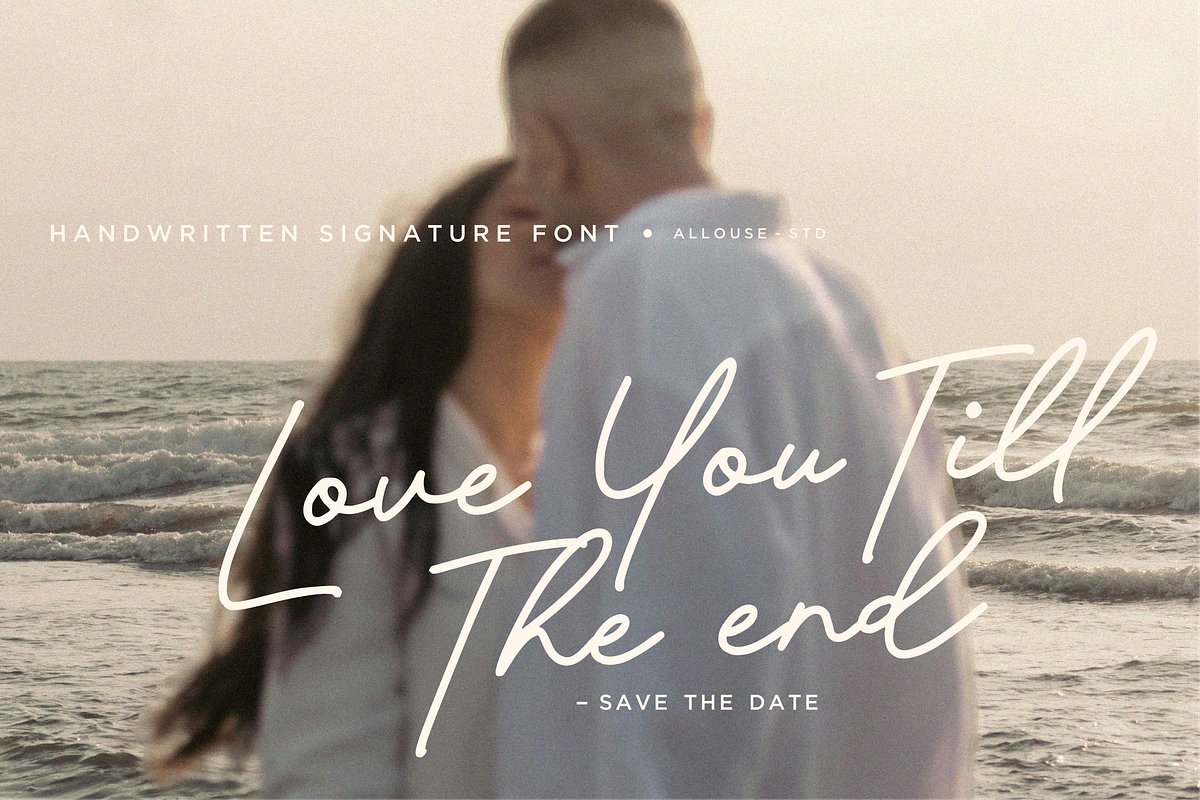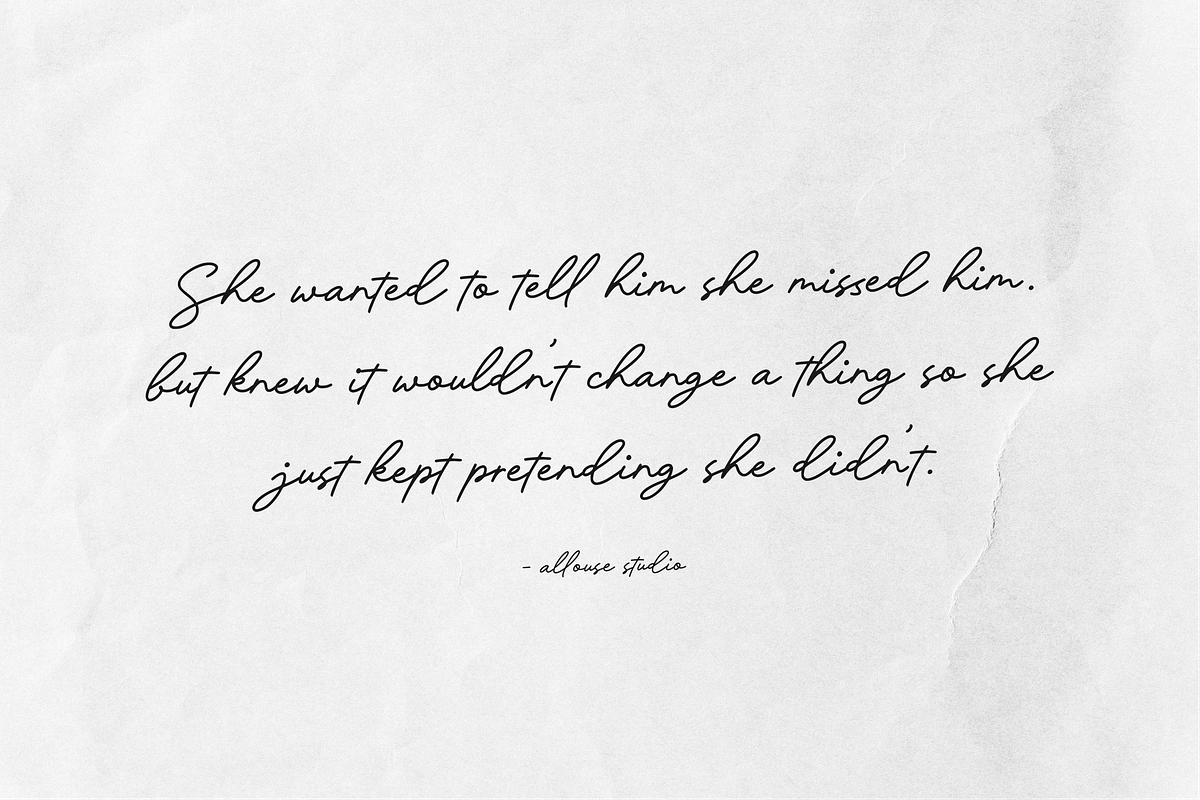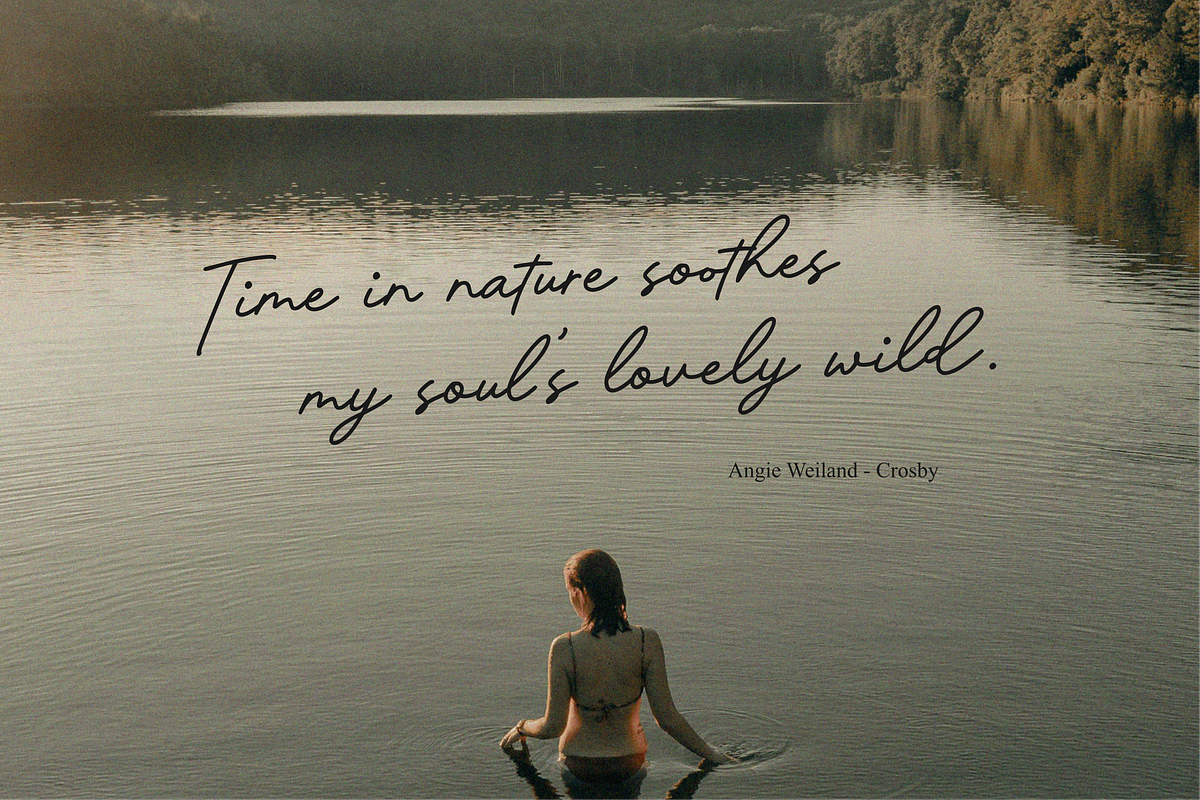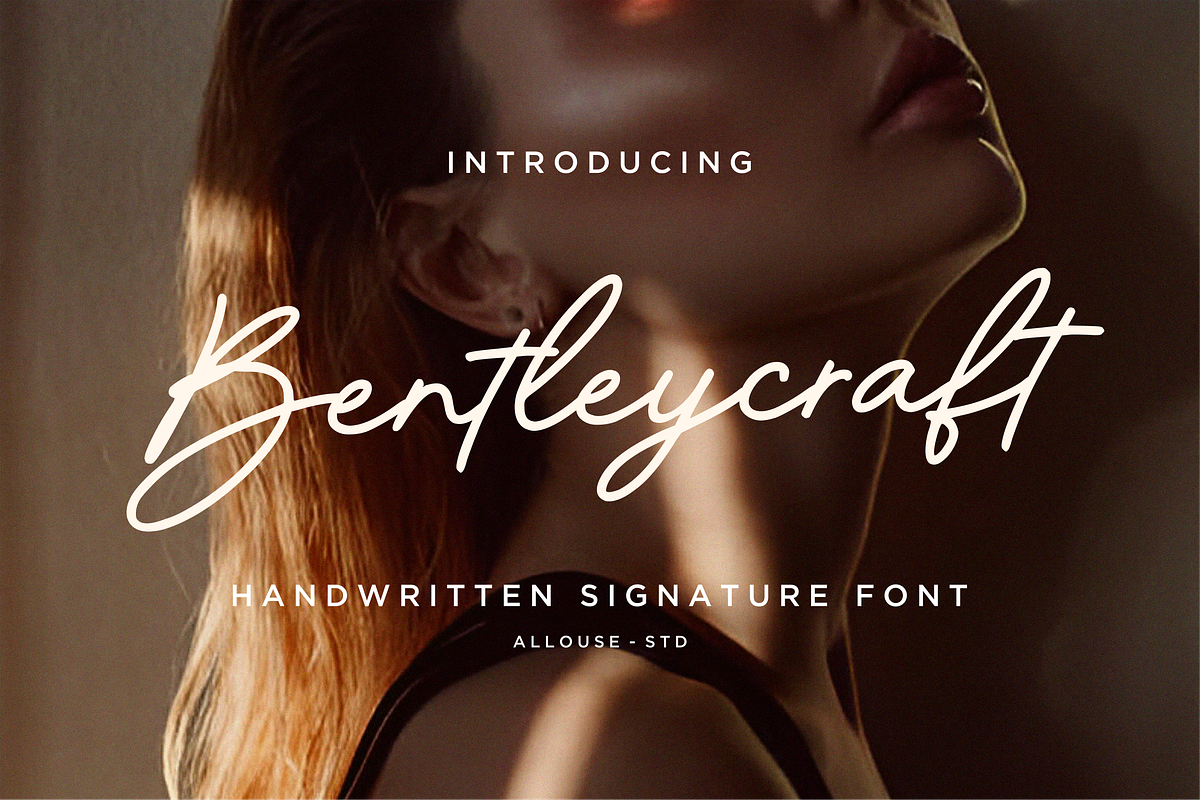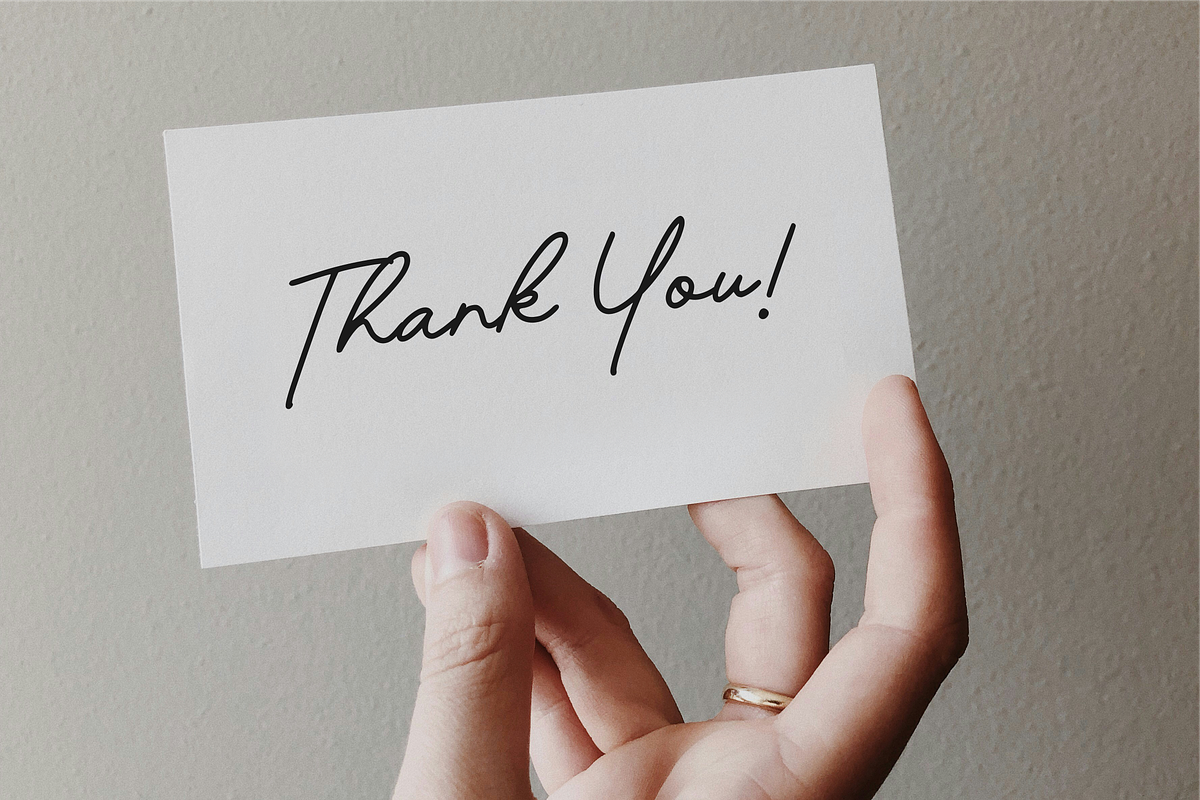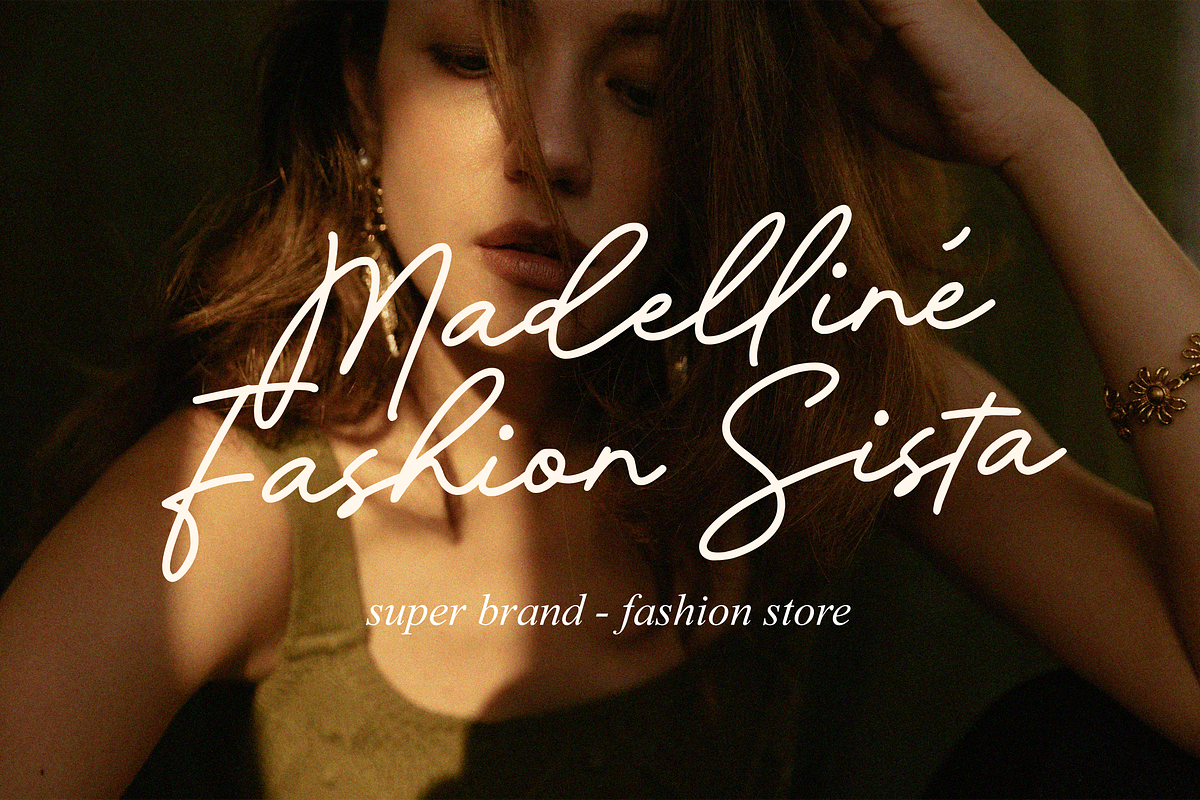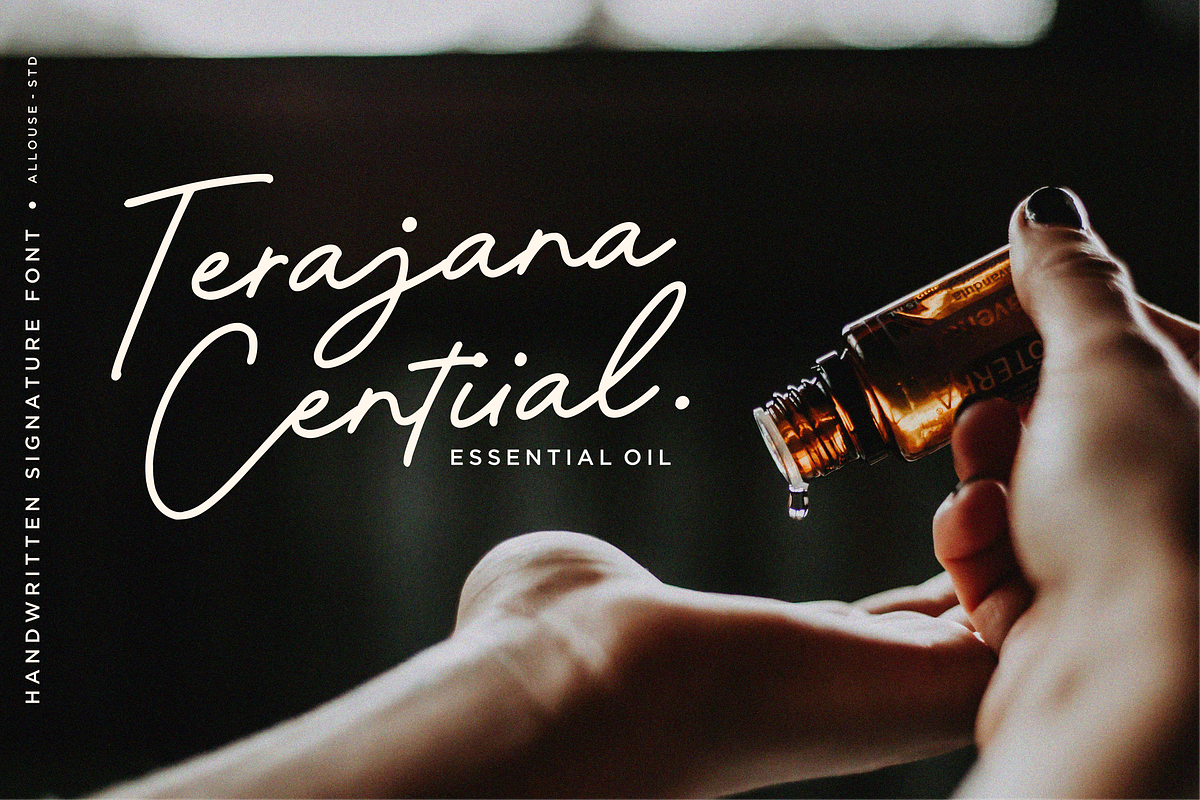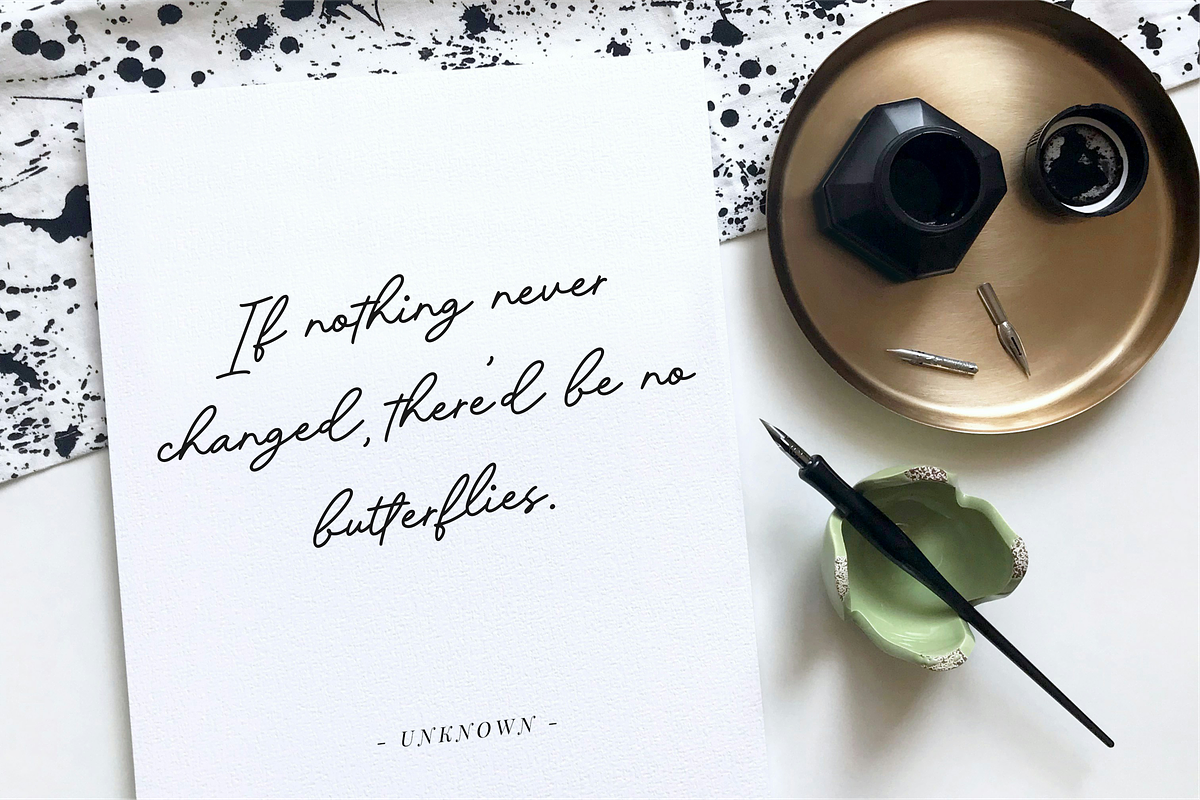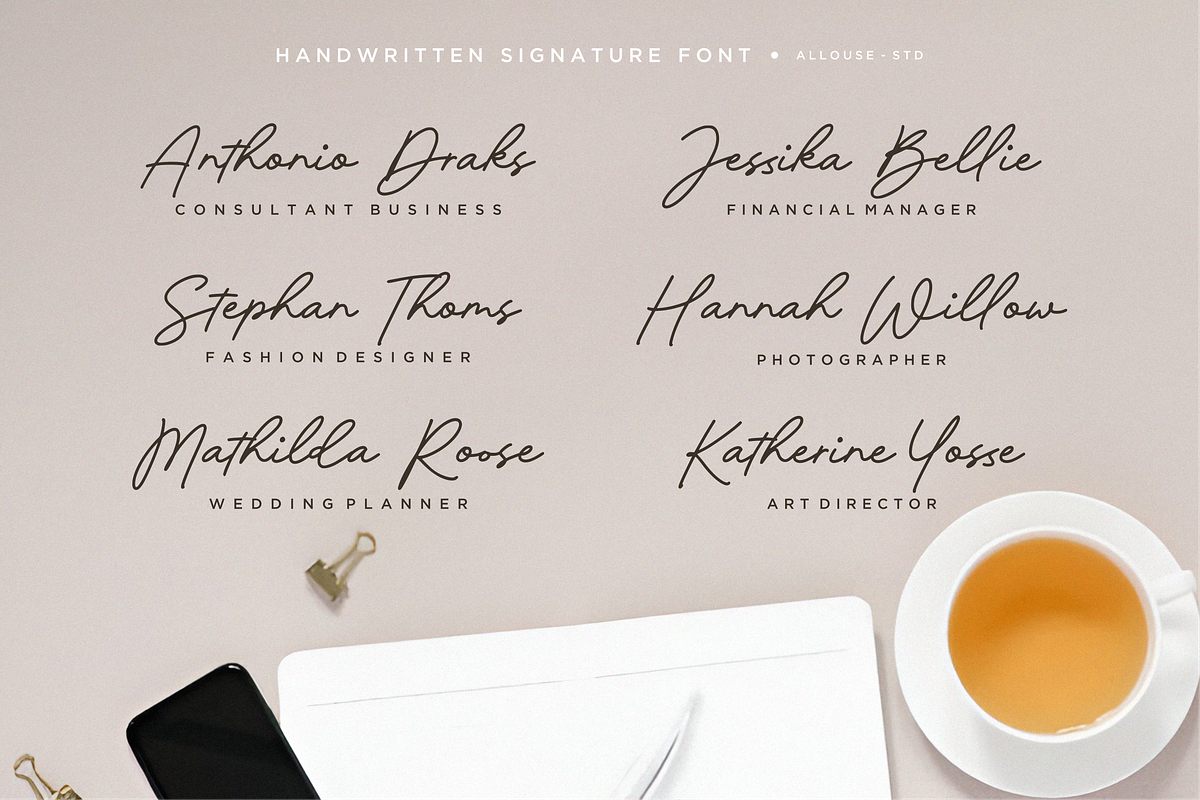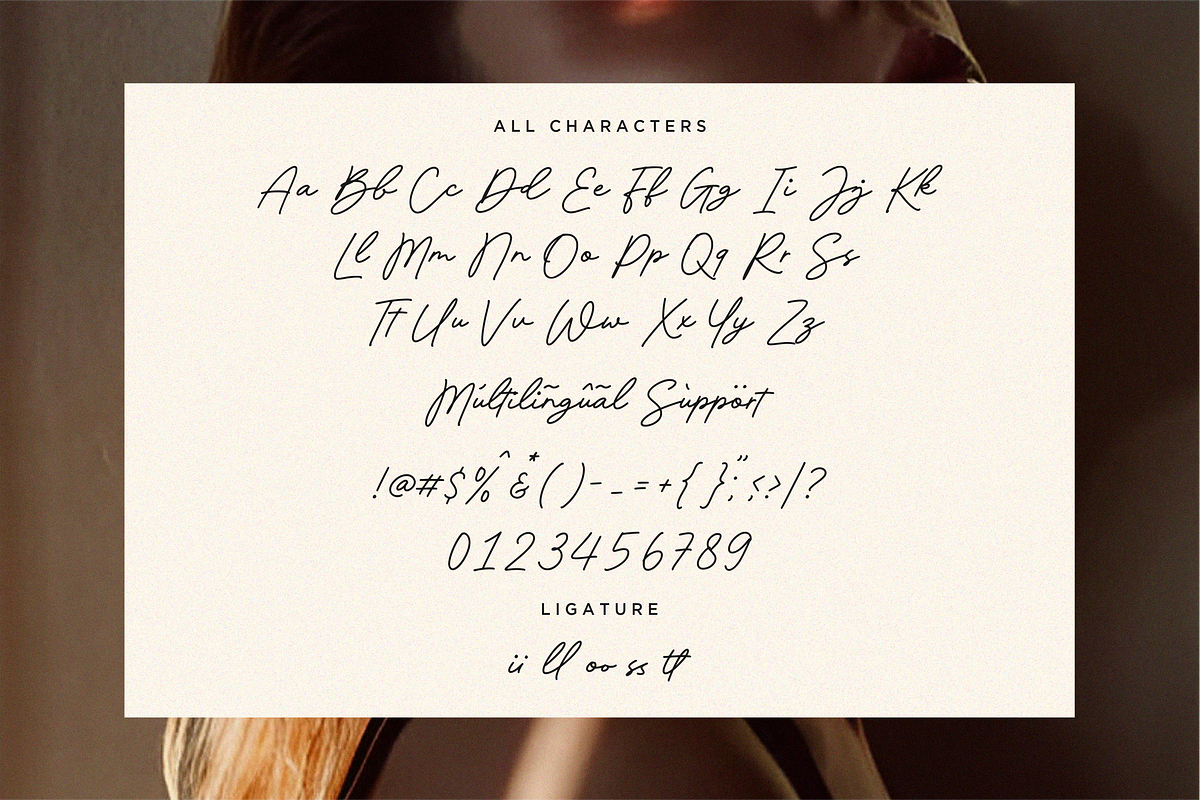
Bentleycraft
Proudly Present, Bentleycraft
Bentleycraft A Handwritten Monoline Font
Bentleycraft is perfect for any titles, product packaging, branding project, megazine, social media, wedding, or just used to express words above the background.
Bentleycraft also come with multilingual support.